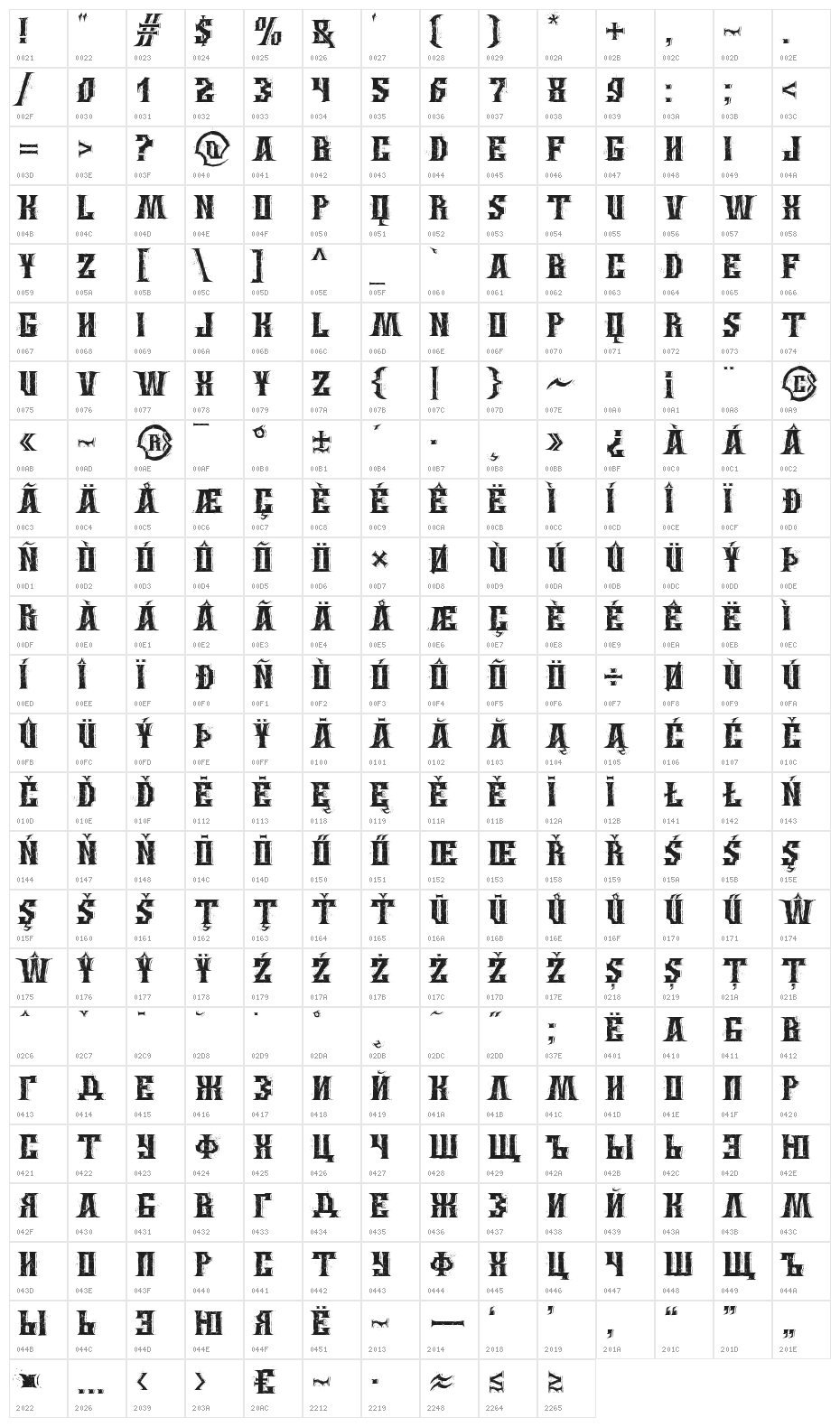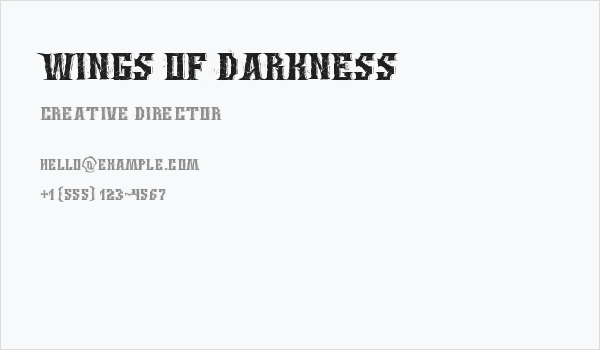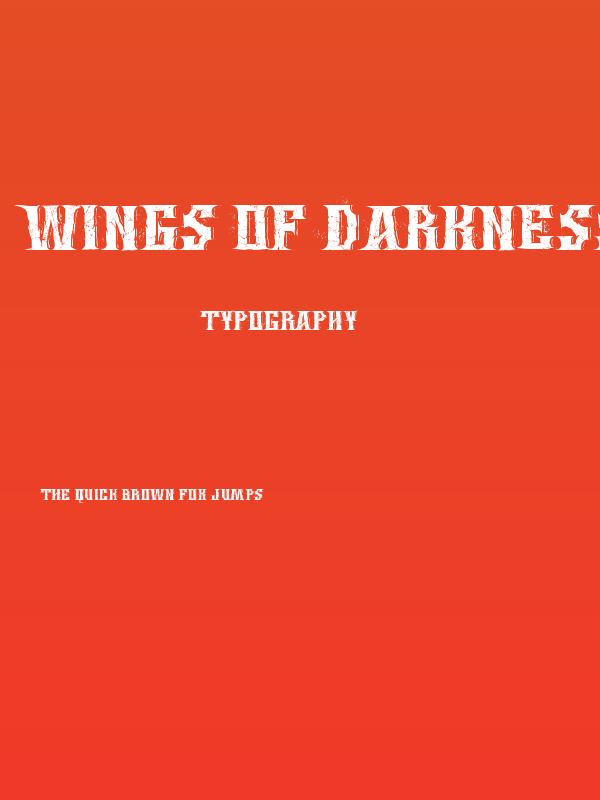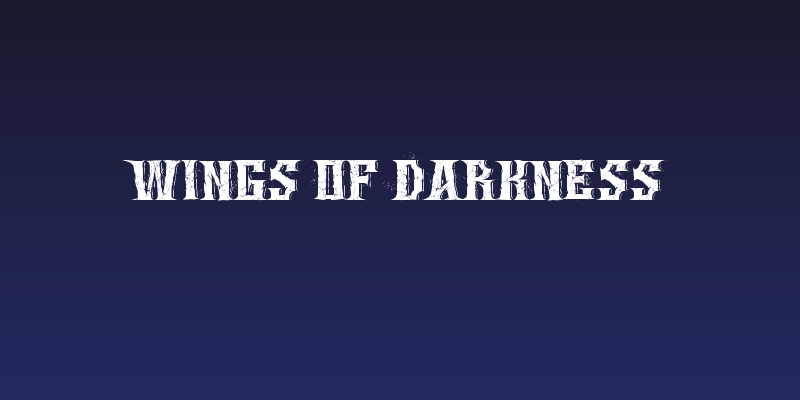
Wings of Darkness Font
Wings of Darkness Description
This font features a bold and dramatic style with a distressed, grunge-like texture. The characters are heavily stylized with sharp edges and a slightly gothic appearance, giving it a dark and mysterious feel. The uppercase and lowercase letters maintain a consistent design, while the numbers and special characters complement the overall aesthetic. The font's unique texture and bold presence make it stand out, ideal for projects that require a strong visual impact.
| Overall Style | Gothic, Grunge |
| Proposed Projects | Perfect for album covers, horror-themed posters, video game titles, and edgy branding projects. |